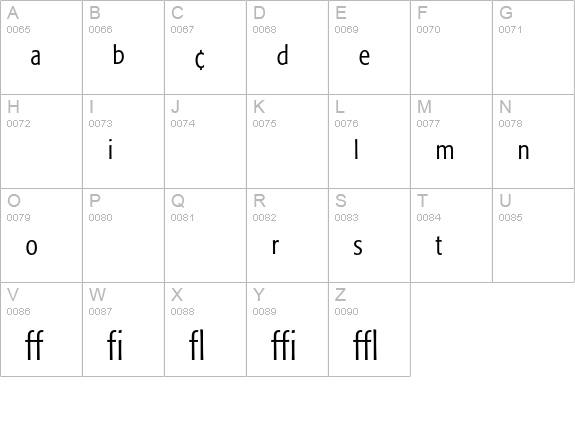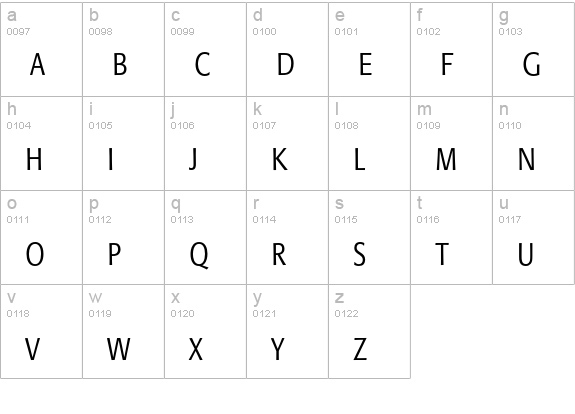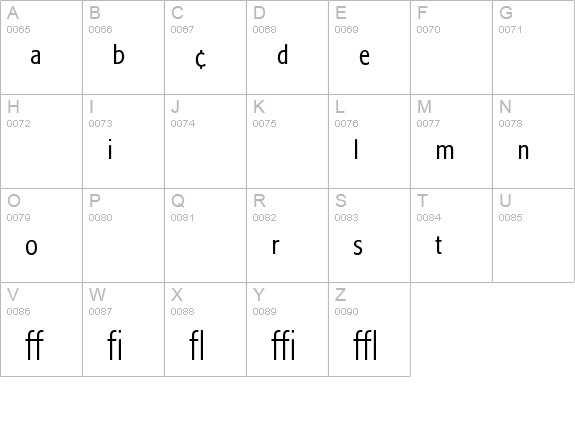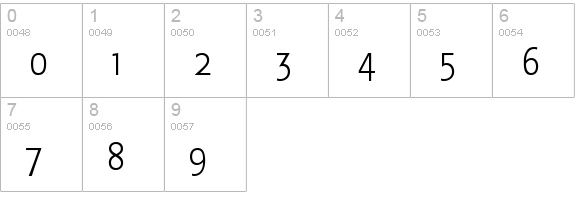
Formata Light Condensed Expert Font Details
Formata Light Condensed Expert is a refined, elegant, condensed-width variant in the Formata typeface family \xE2\x80\x94 well suited to elegant body text, refined sub-headings, and luxury branding.
Formata Light Condensed Expert font is a modern and elegant typeface that exudes sophistication and professionalism. Its condensed design allows for optimal space utilization without sacrificing readability or style. The sleek lines and sharp edges of this font make it perfect for conveying a contemporary and refined aesthetic in various design projects. What makes Formata Light Condensed Expert even more appealing is that it is available for free download at FontsMarket.com. This means that you can easily access and use this high-quality font without any cost, making it a valuable asset for designers, creatives, and anyone looking to elevate their projects with a touch of class and sophistication. Whether you're working on branding materials, website design, printed collateral, or any other project that requires a clean and stylish typeface, Formata Light Condensed Expert is sure to deliver exceptional results. Download this font for free today and elevate your designs with its timeless appeal and modern flair.